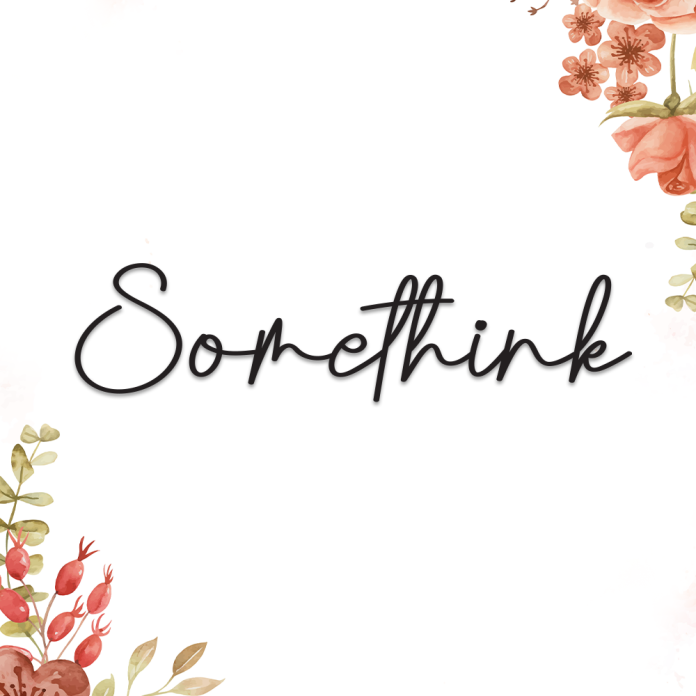
Somethink is a laid-back and expressive handwriting font that feels personal, spontaneous, and full of character. Its relaxed letterforms and smooth strokes make it perfect for designs that need a touch of authenticity and creative flair.
Whether you're working on notes, blog graphics, quotes, branding, or packaging, Somethink adds a natural and relatable feel to your project.
Casual, modern handwritten style
Smooth, easygoing strokes with personality
Great for quotes, journaling, lifestyle branding, and digital art
Add a spark of personality and warmth to your work with Somethink, the font that says it all—just the way you would.